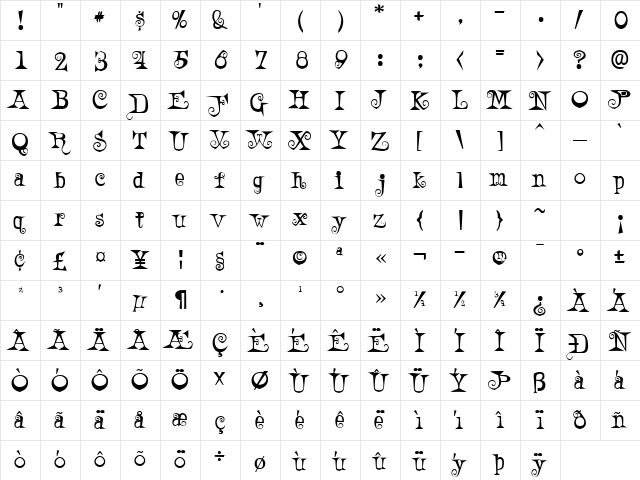
A Weird PartyAlt Regular
Design Context for A Weird PartyAlt Typeface
A Weird PartyAlt is a composed and adaptable typeface that performs quietly and consistently across a wide range of design contexts.